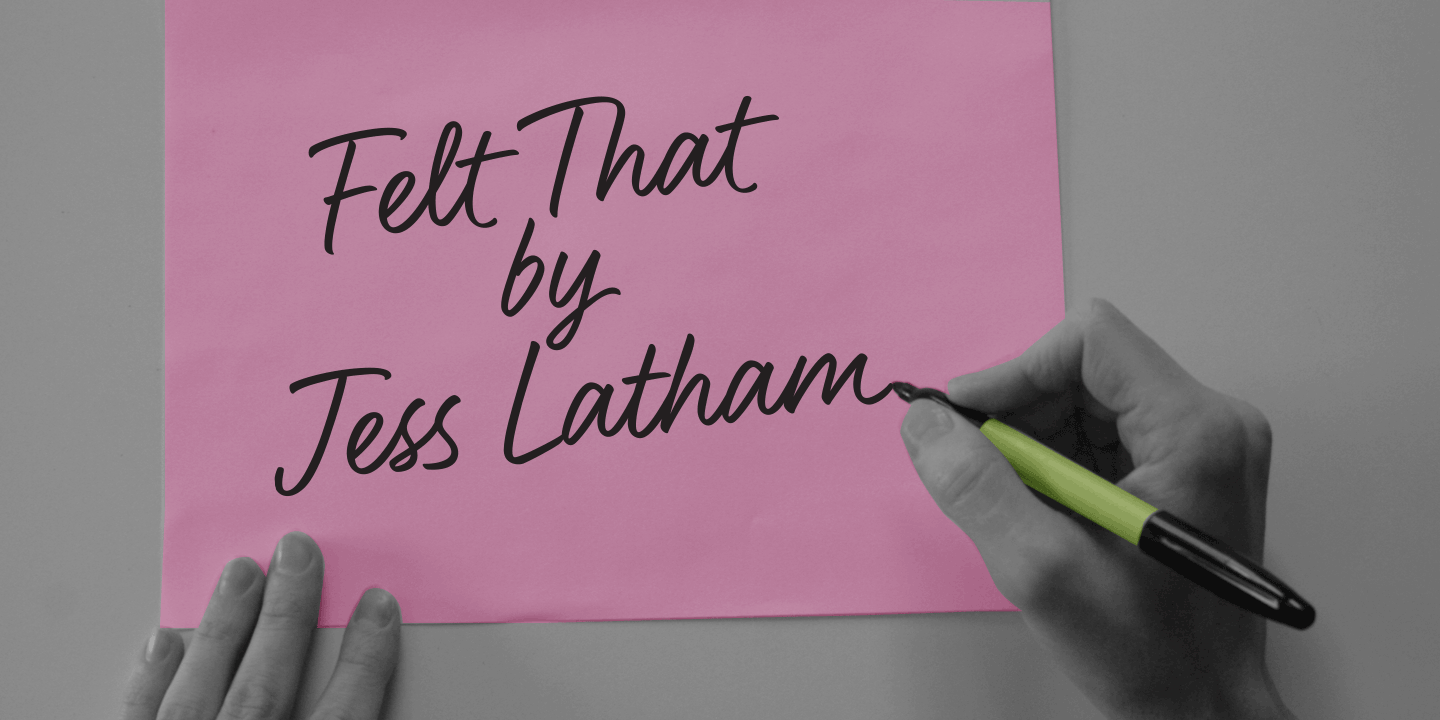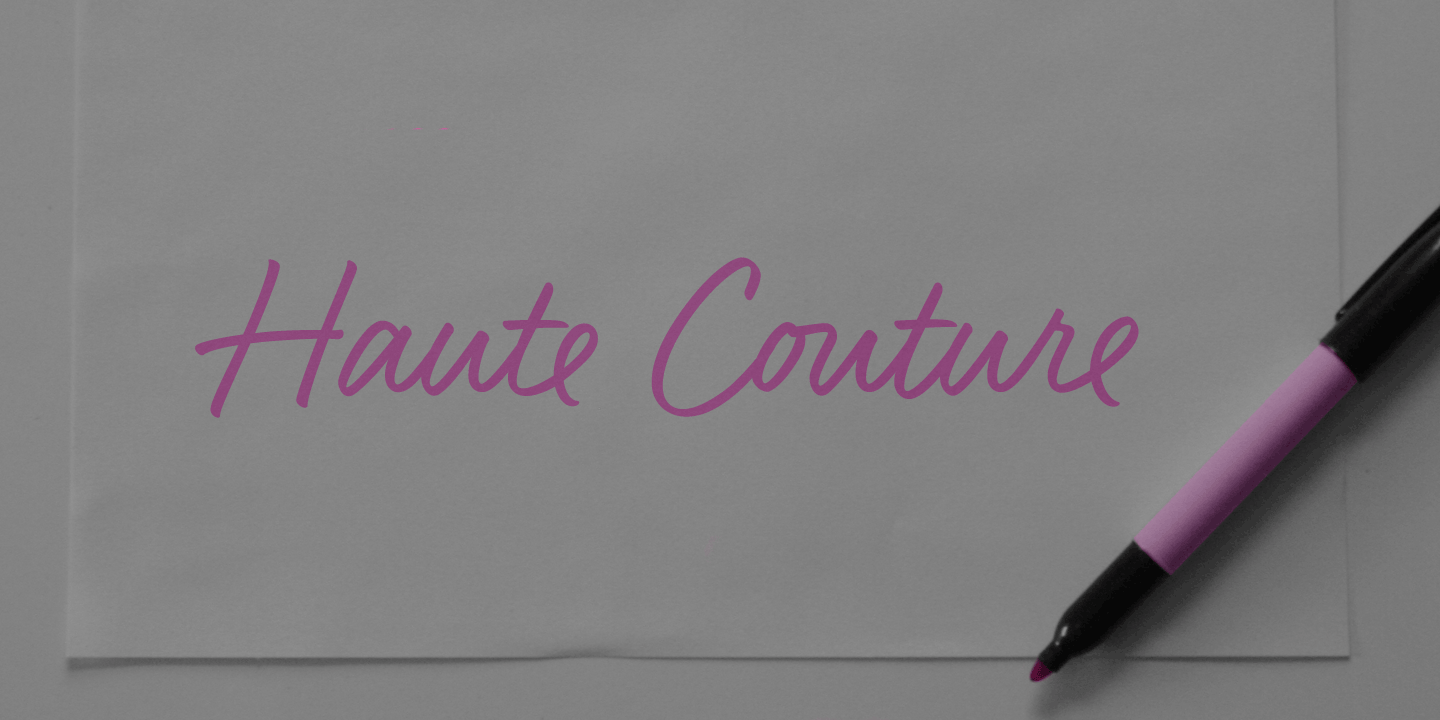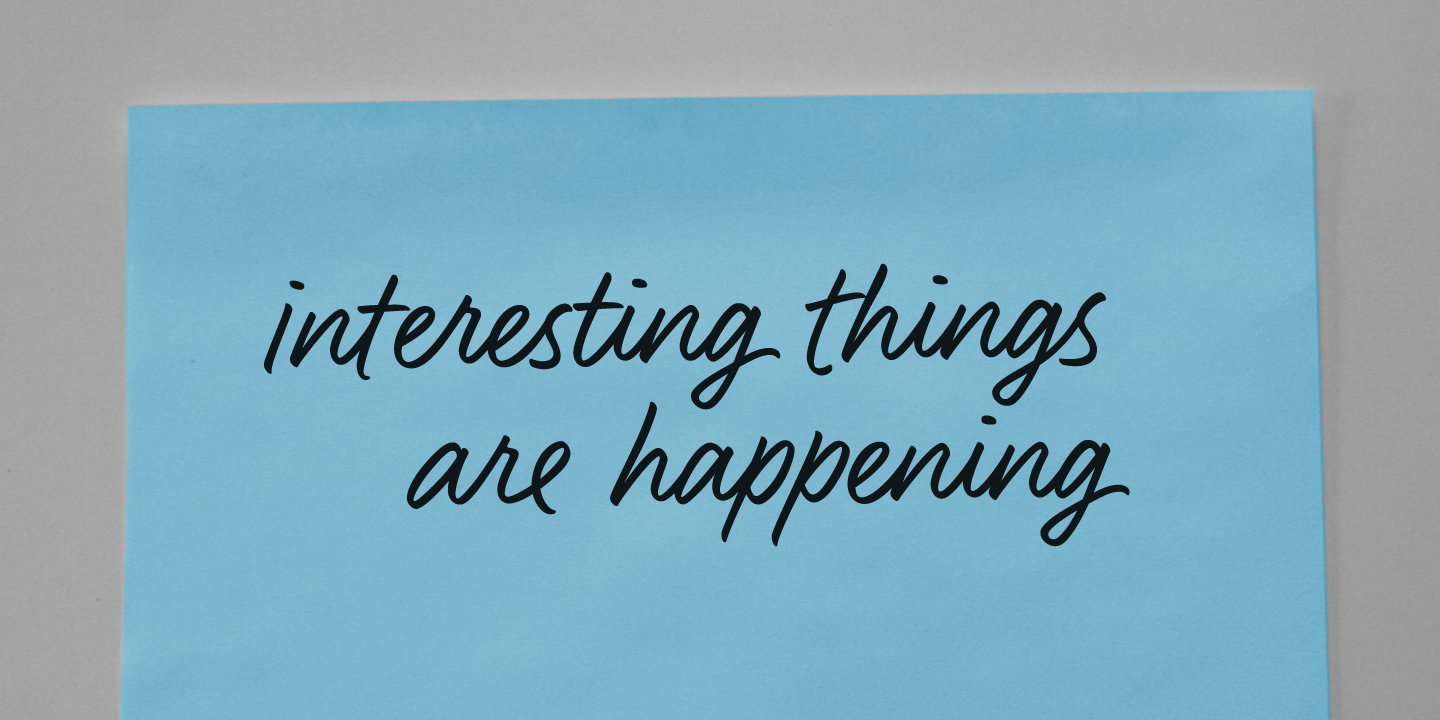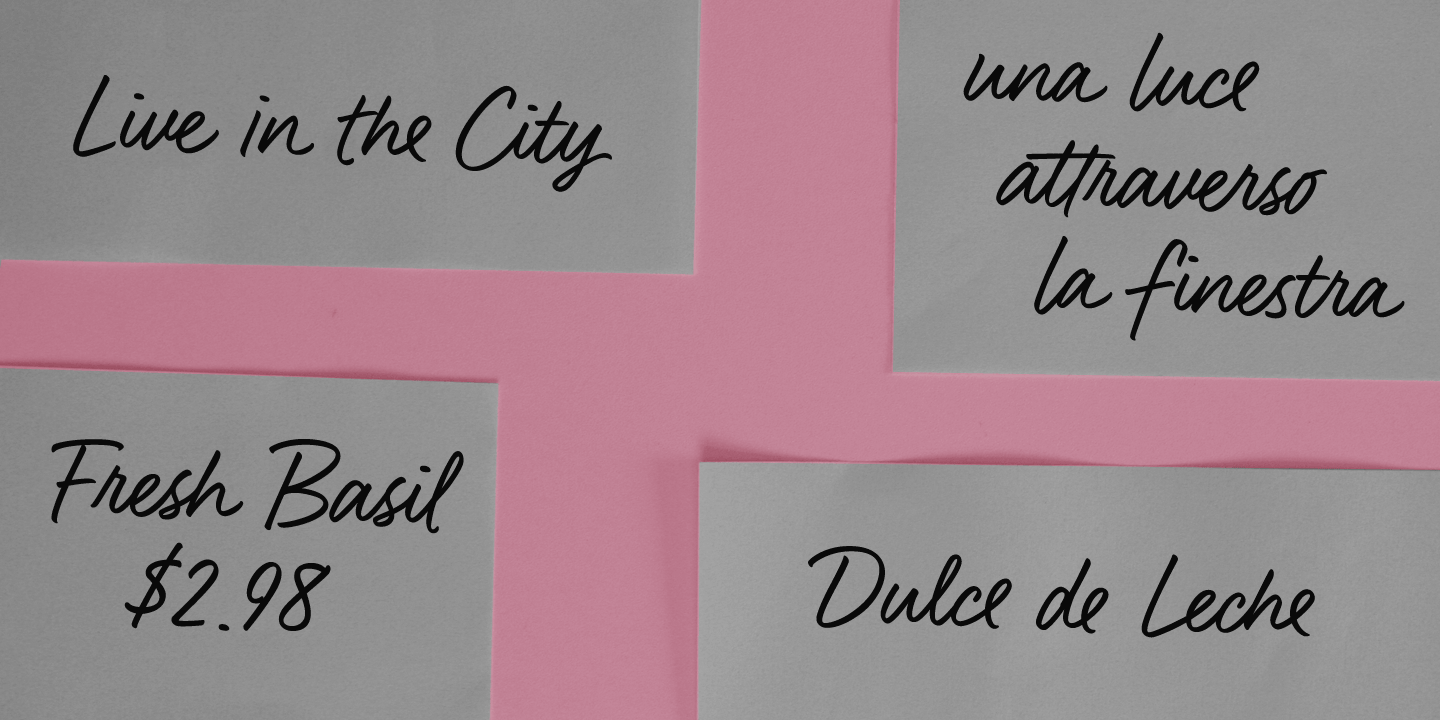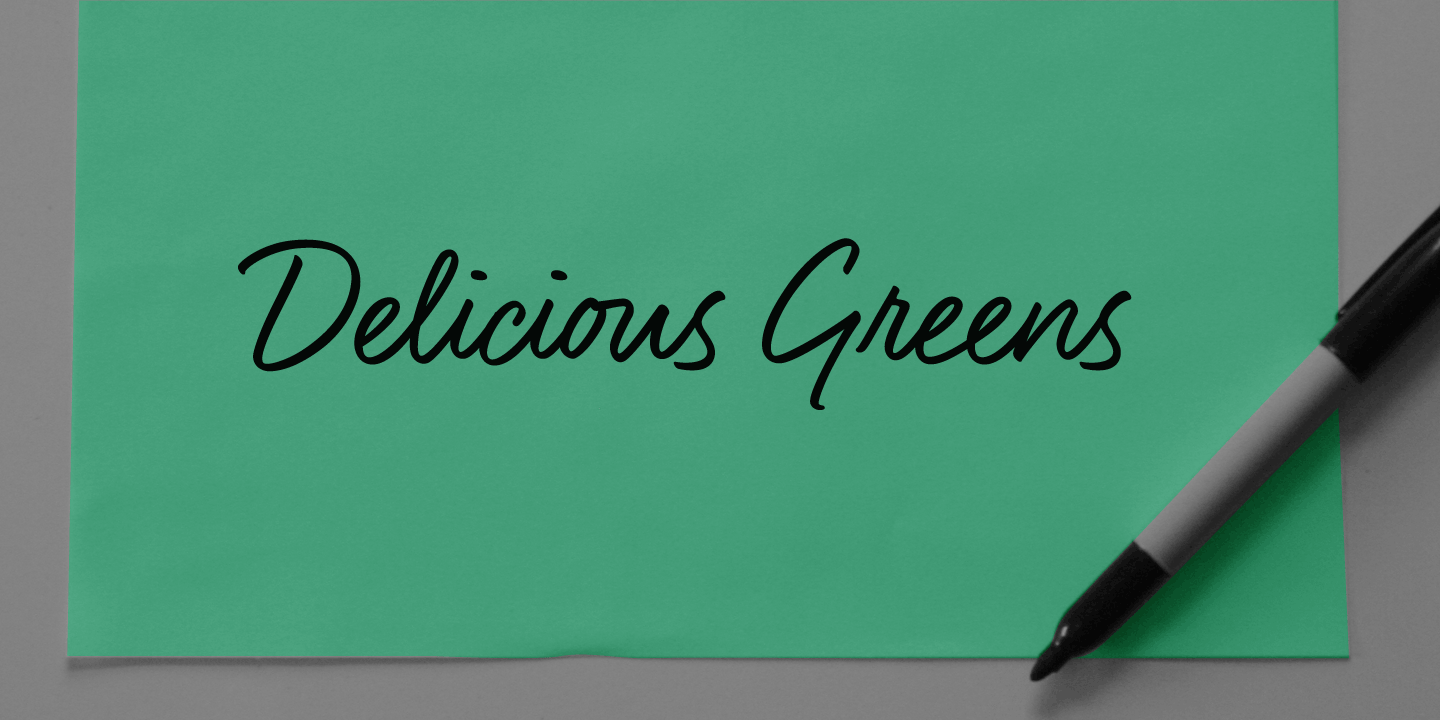
Felt That
Font Family by Jess Latham
Felt That was hand drawn with a bullet tipped marker. Great care was taken to recreate the natural look of hand lettering. The large amount of ligatures helps with redundancy that can make a typeface look mechanical. Felt That also contains starts and endings that makes it look even more realistic. To get the most out of this typeface be sure to use a program that has opentype capabilities.